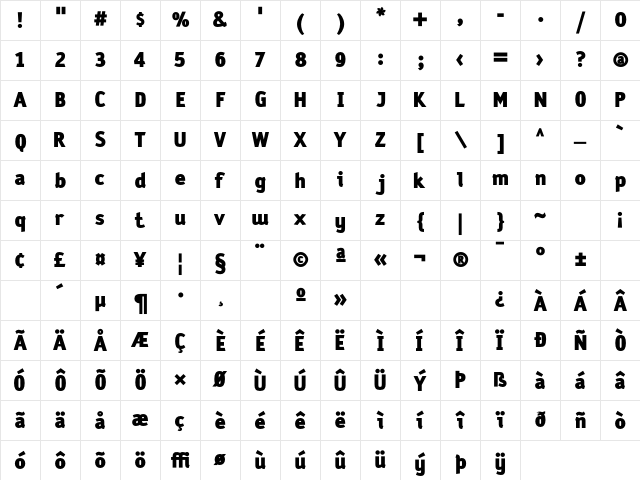
Sodium Black Free Font
Sodium Black
Design Context for Sodium
Sodium is a composed and adaptable typeface that performs quietly and consistently across a wide range of design contexts.